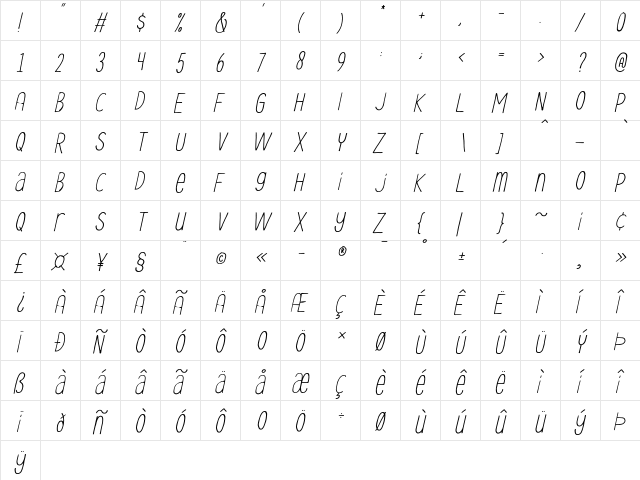
Le-Havre-City-Light-Oblique Font Preview
Design Context for Le-Havre-City-Light-Oblique Typeface
Le-Havre-City-Light-Oblique is a composed and adaptable typeface that performs quietly and consistently across a wide range of design contexts. Its italic angle brings a sense of urgency and motion to the letterforms. The delicate stroke weight brings airiness and refinement to layouts.